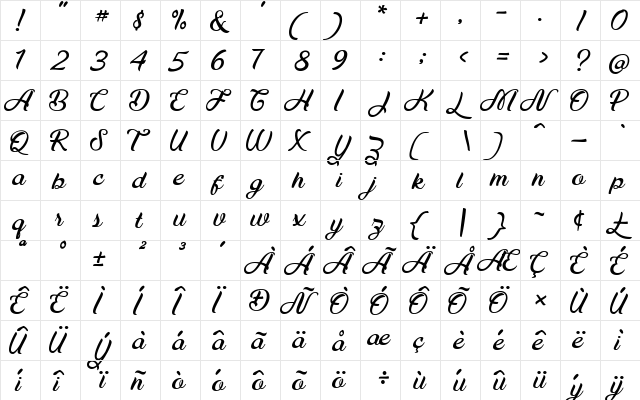
Maudy Script Font Preview
Maudy Script Maudy Script
Maudy Script Font Details
| Style | Maudy Script |
| Foundry | IanMikraz |
| Designer | IanMikraz |
Design Context for Maudy Script Typeface
Maudy Script flows with the natural rhythm of handwritten lettering, making it ideal for designs that call for warmth and personal expression.
Font Pairing: Combine Maudy Script with a simple geometric sans for maximum contrast — the tension between flowing curves and clean structure is a classic typographic pairing.
Pro Tip: Pair Maudy Script with a clean sans-serif for supporting text. The contrast between fluid script and geometric structure creates an elegant typographic hierarchy.